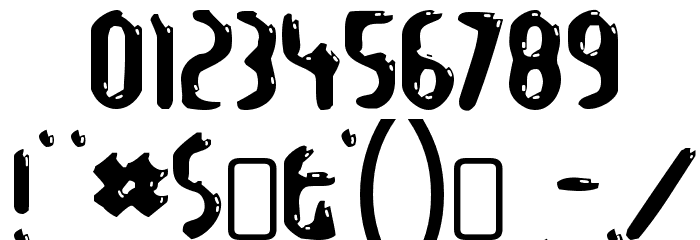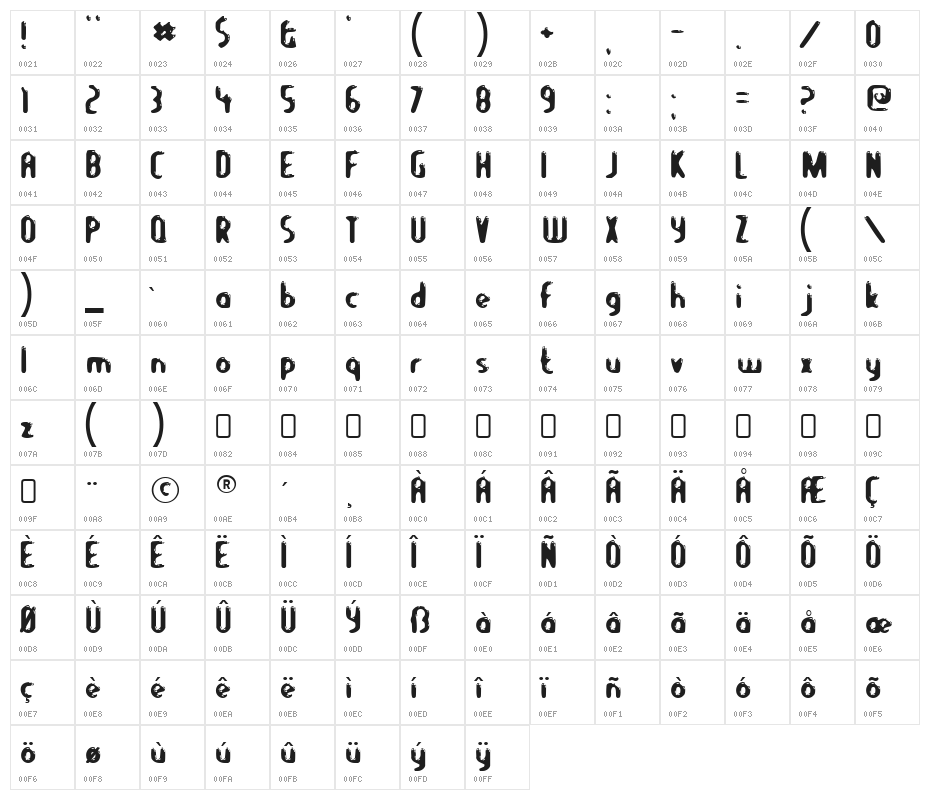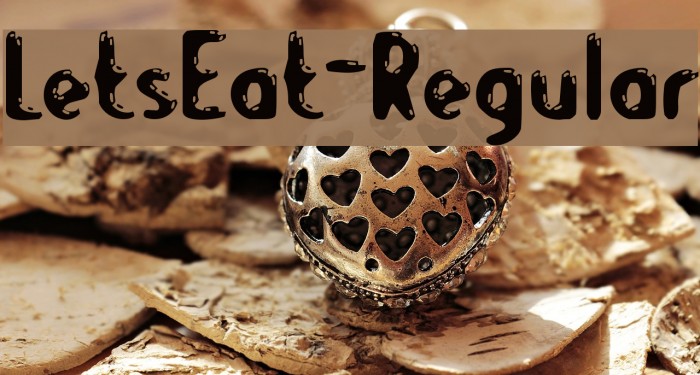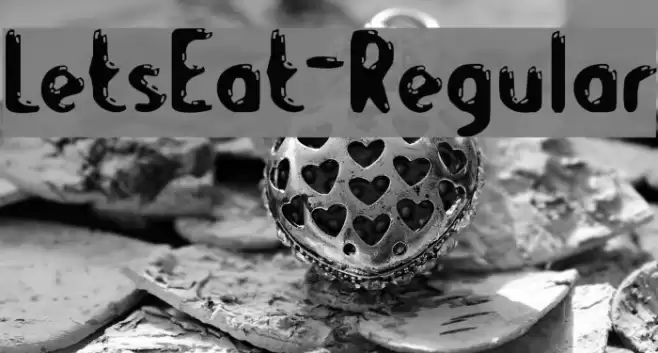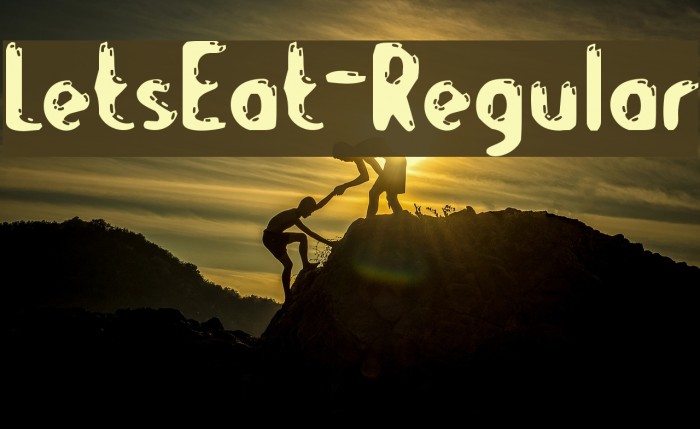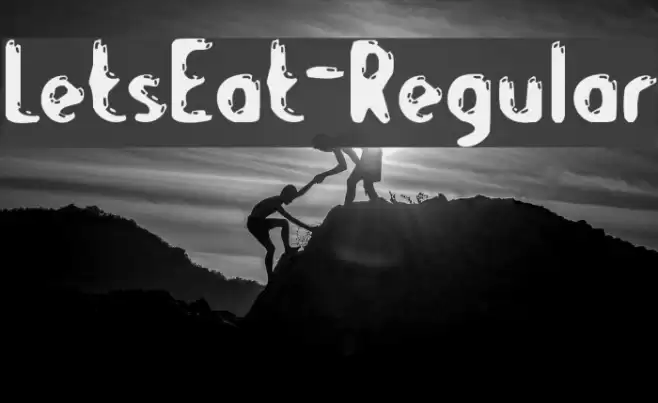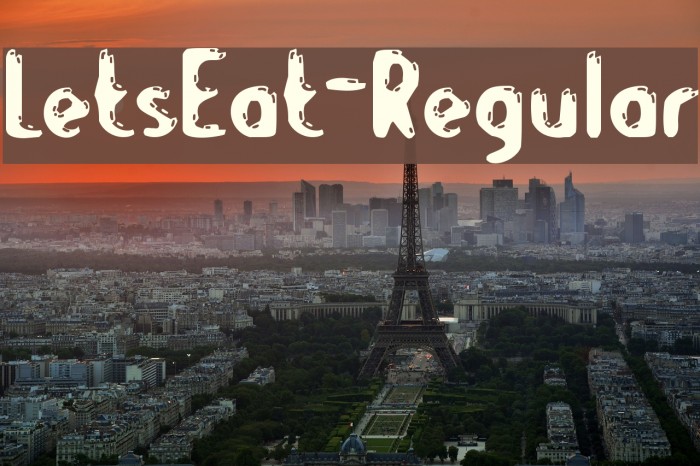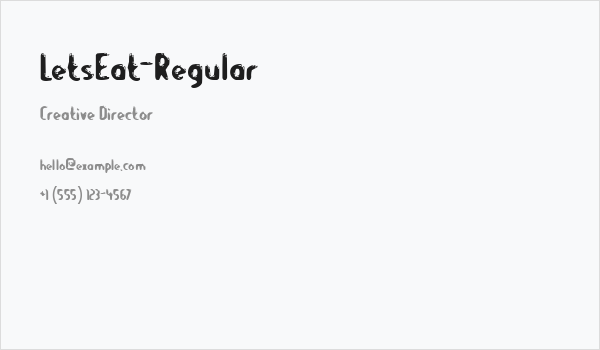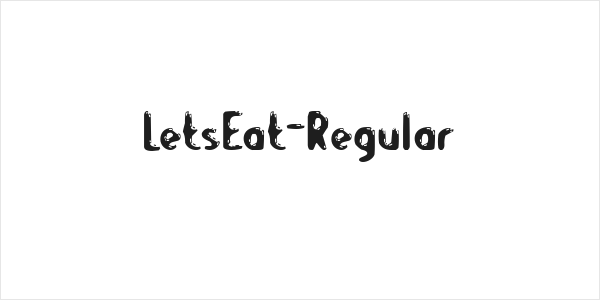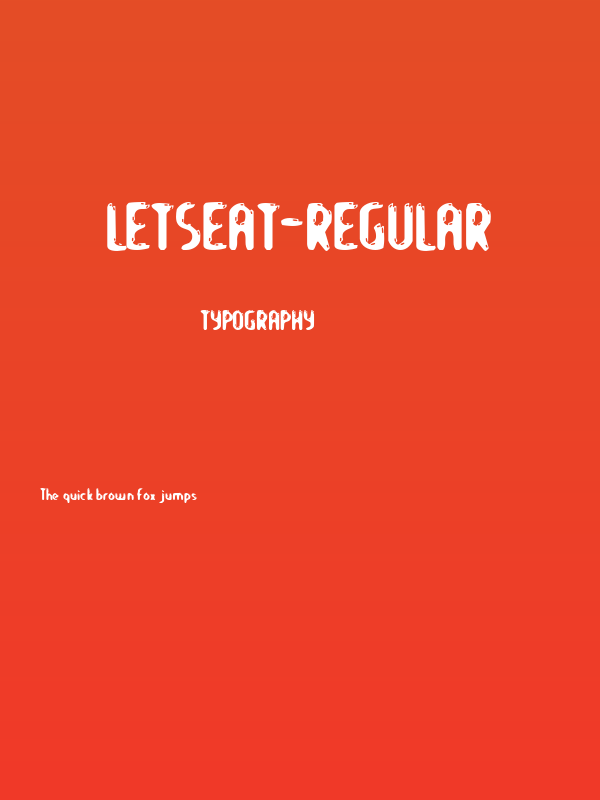
LetsEat-Regular Font
LetsEat-Regular Description
This font features a playful and bold design with a unique, distressed texture that gives it a lively and dynamic appearance. The characters are rounded and thick, with irregular edges that create a sense of movement and energy. The uppercase and lowercase letters maintain a consistent style, while the numbers and special characters complement the overall aesthetic. This font's distinctive look makes it stand out, adding a touch of creativity and fun to any project.
| Overall Style | Playful, Creative |
| Proposed Projects | Ideal for children's books, playful branding, posters, and creative advertising. |